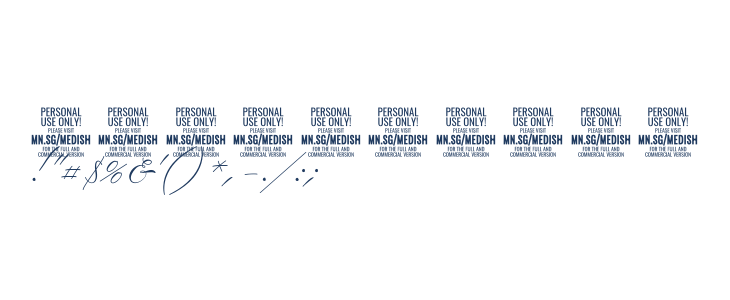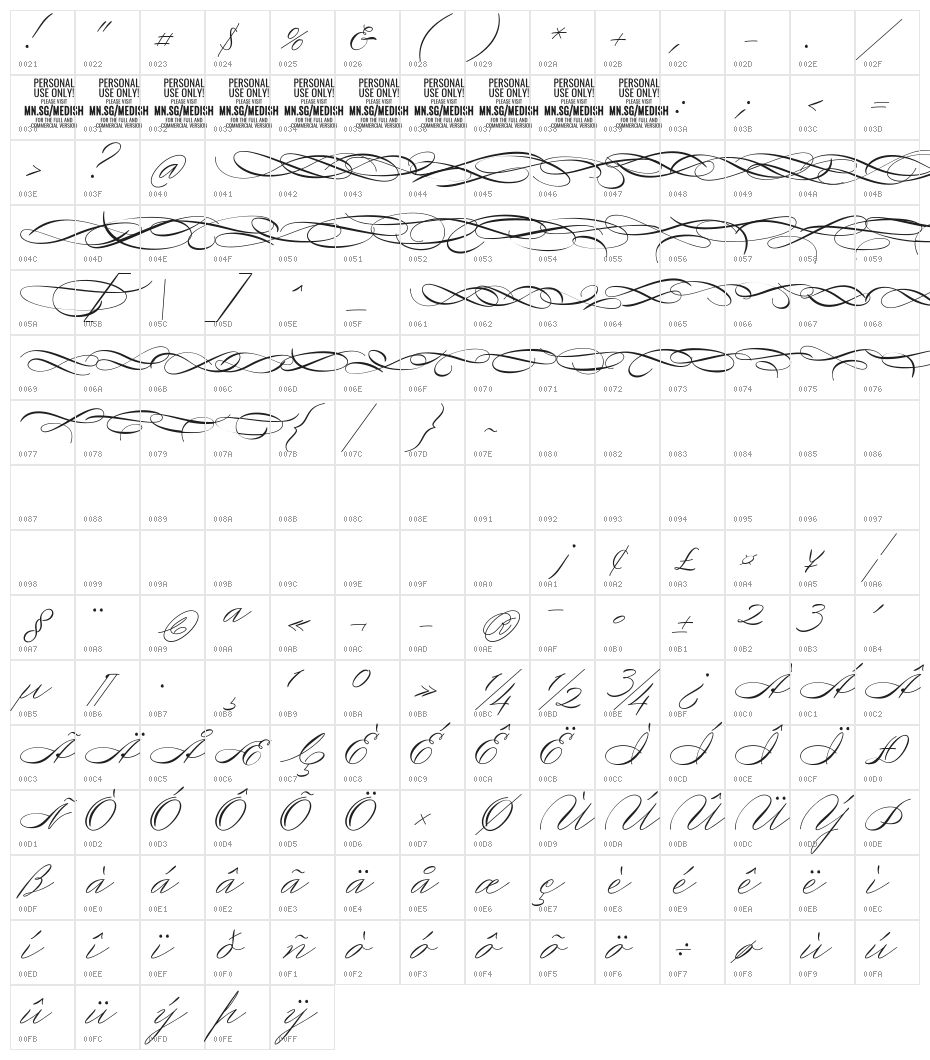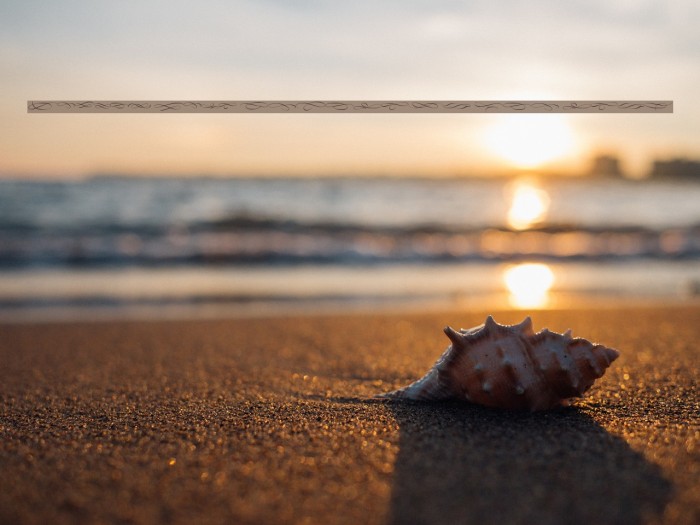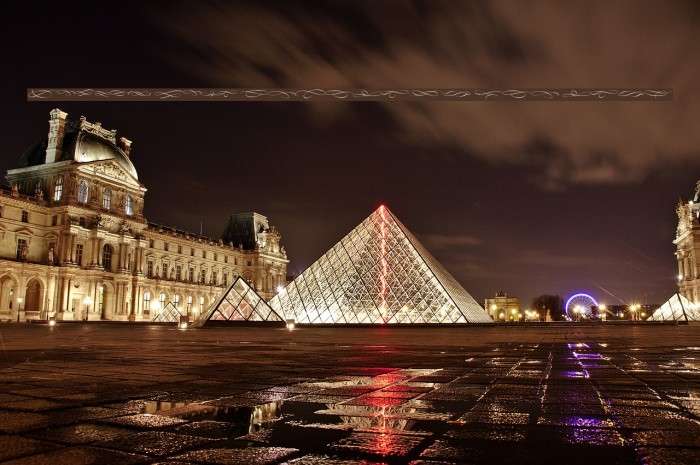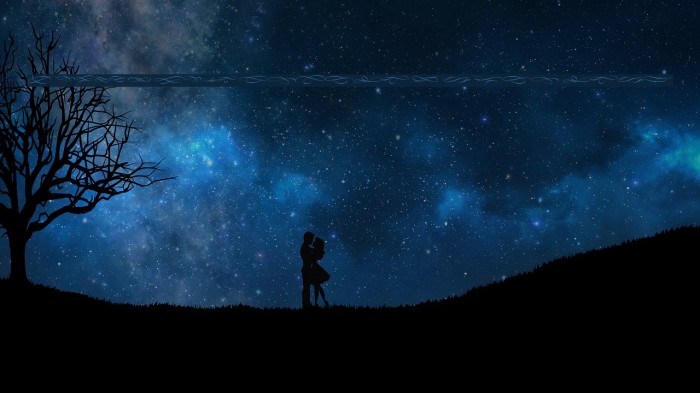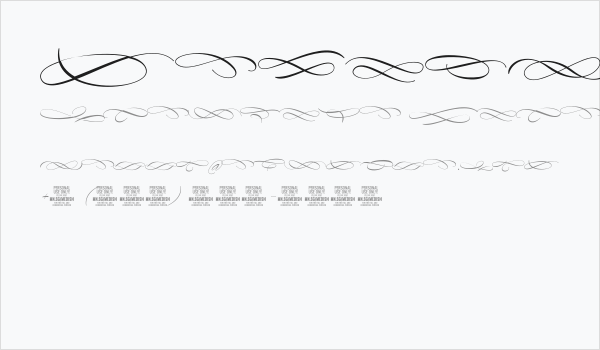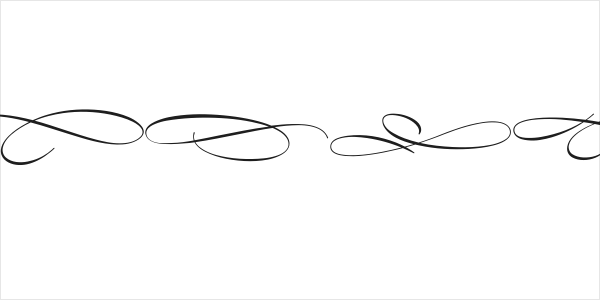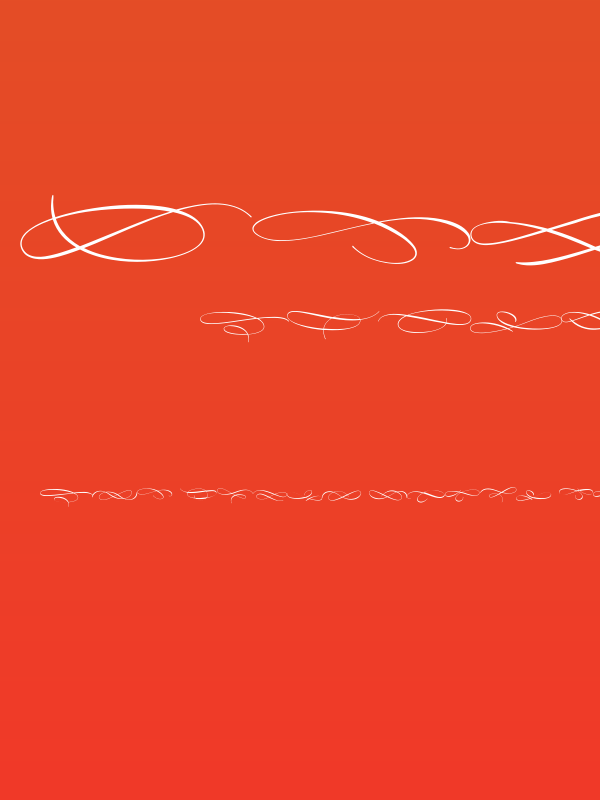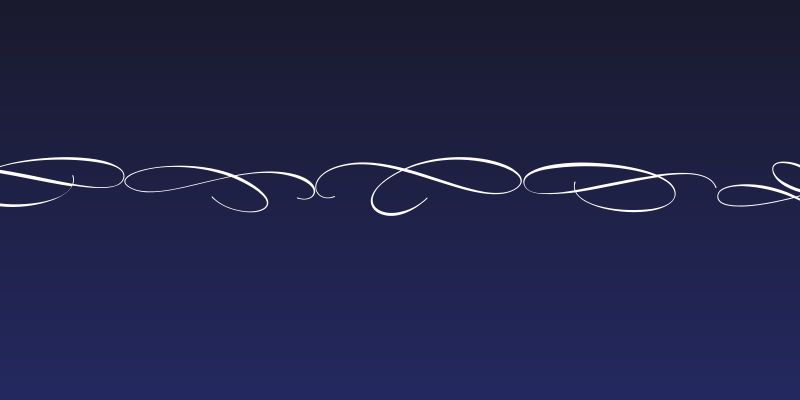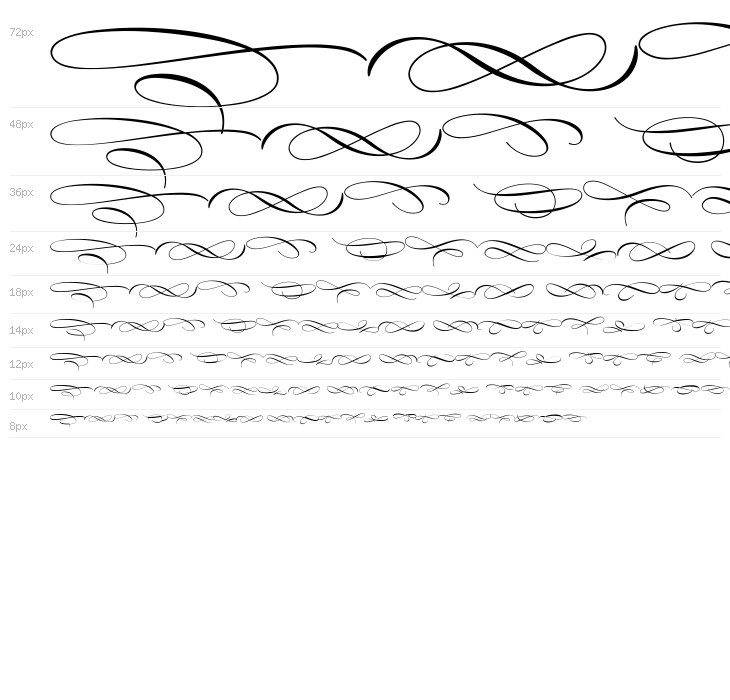
Medish Deco PERSONAL USE ONLY Font
Medish Deco PERSONAL USE ONLY Description
This font is a highly decorative and ornate typeface, characterized by its intricate swirls and flourishes. It embodies a sense of elegance and sophistication, making it ideal for projects that require a touch of luxury and refinement. The characters are designed with elaborate loops and curves, creating a visually striking appearance. This font is perfect for special occasions, invitations, and branding that seeks to convey a sense of grandeur and style. Its unique design elements make it stand out, ensuring that any text set in this font will capture attention and convey a message of elegance.
| Proposed Projects | Ideal for wedding invitations, luxury branding, event posters, and decorative headings. |